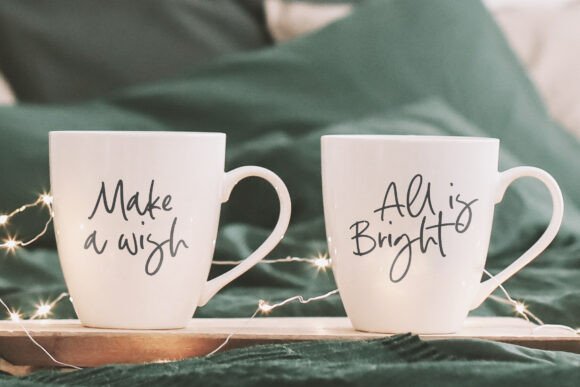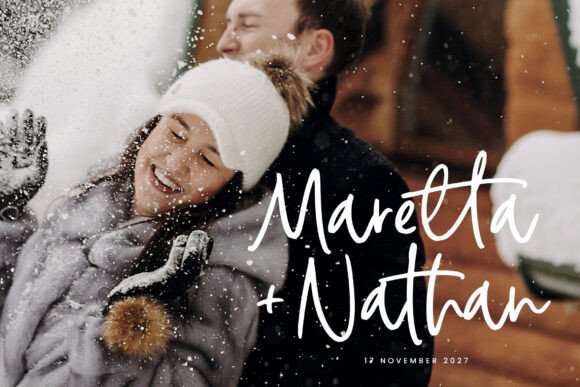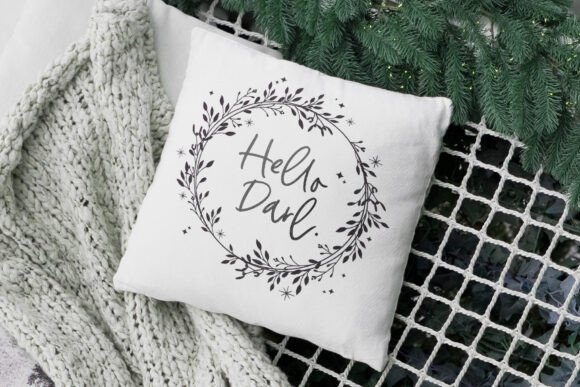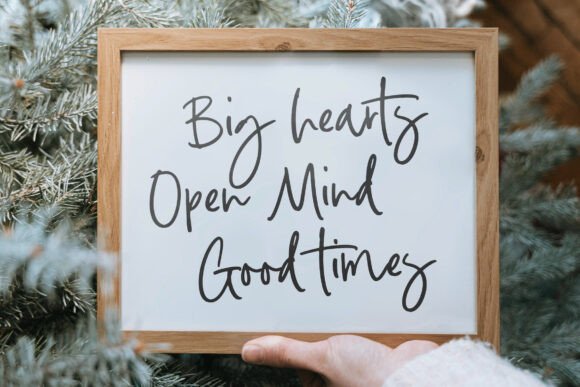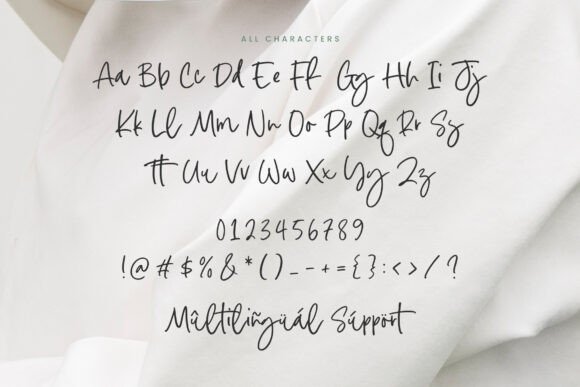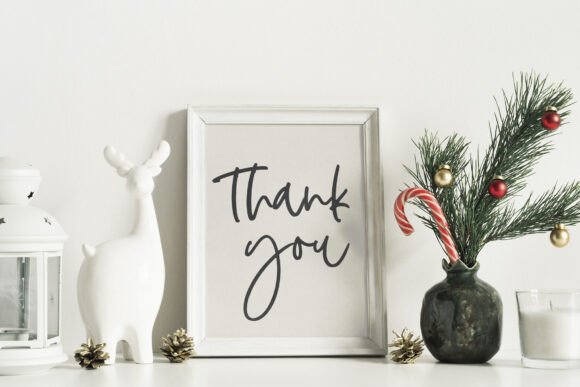
Austone Winter Font: Elevate Your Designs with Elegant Handwritten Charm
Are you searching for a font that embodies the essence of winter’s beauty and tranquility? Look no further than the Austone Winter Font, an exquisite handwritten script font that brings a touch of classic calligraphy to your modern designs. With its flowing, cursive strokes and gentle curves, this font is perfect for creating stunning wedding invitations, greeting cards, and seasonal designs that exude warmth and sophistication.
A Modern Twist on Classic Calligraphy
The Austone Winter Font is a masterful blend of traditional calligraphy and modern elegance. Its unique character set features gentle flourishes and balanced letterforms that evoke a sense of refinement and poise. Whether you’re designing a wedding invitation or a holiday greeting card, this font is sure to add a touch of personal, handwritten style to your project.
Perfect for Winter Designs
As the name suggests, the Austone Winter Font is particularly well-suited for winter designs. Its elegant, cursive strokes and soothing curves evoke the serene beauty of snow-covered landscapes and cozy winter nights by the fire. Whether you’re creating a festive holiday card or a seasonal-themed invitation, this font is sure to capture the essence of the winter season.
Key Features of Austone Winter Font
- Elegant handwritten script: The Austone Winter Font features a beautiful, handwritten script that captures the charm of classic calligraphy with a modern twist.
- Flowing, cursive strokes: The font’s flowing, cursive strokes add a touch of warmth and sophistication to any design.
- Gentle flourishes and balanced letterforms: The font’s unique character set features gentle flourishes and balanced letterforms that evoke a sense of refinement and poise.
- Perfect for wedding invitations and greeting cards: The Austone Winter Font is ideal for creating stunning wedding invitations, greeting cards, and seasonal designs.
How to Use Austone Winter Font in Your Designs
Why Designers and Crafters Love Austone Winter Font
Designers and crafters love the Austone Winter Font for its unique blend of classic calligraphy and modern elegance. Here are a few reasons why:
- Versatile: The Austone Winter Font is versatile and can be used in a variety of design projects, from wedding invitations to seasonal-themed designs.
- Elegant: The font’s elegant, cursive strokes and gentle flourishes add a touch of sophistication to any design.
- Easy to use: The Austone Winter Font is easy to use and can be paired with a variety of complementary fonts and design elements.
In conclusion, the Austone Winter Font is a beautiful, elegant handwritten script font that captures the charm of classic calligraphy with a modern twist. With its flowing, cursive strokes and gentle curves, this font is perfect for creating stunning wedding invitations, greeting cards, and seasonal designs. Whether you’re a designer or crafter, the Austone Winter Font is sure to become a favorite in your design arsenal.